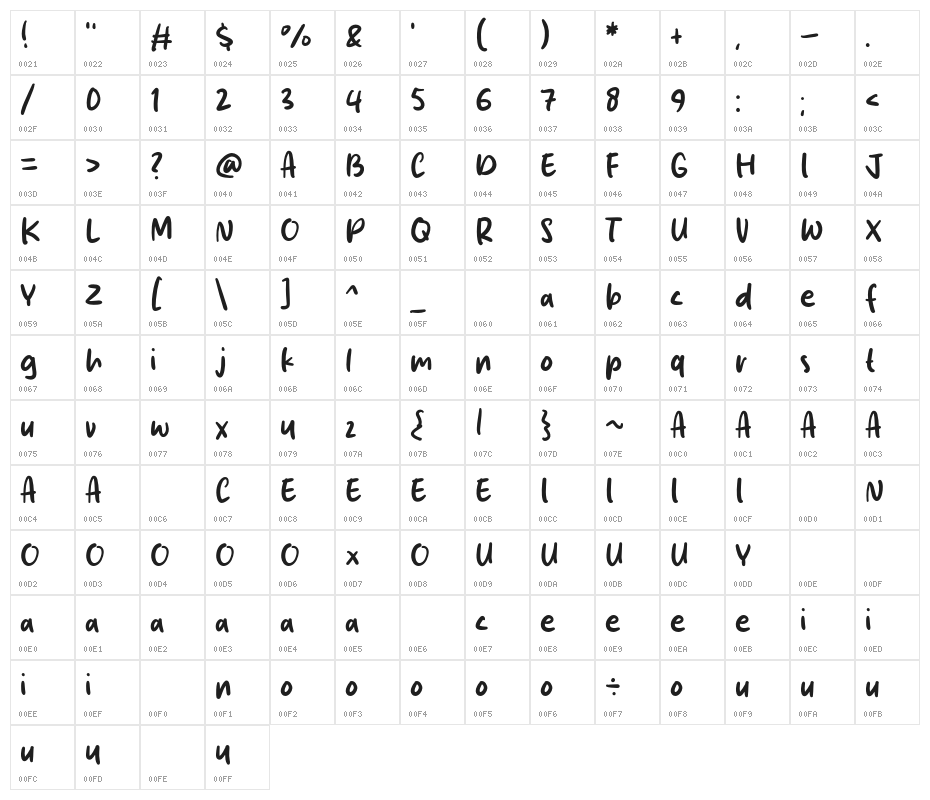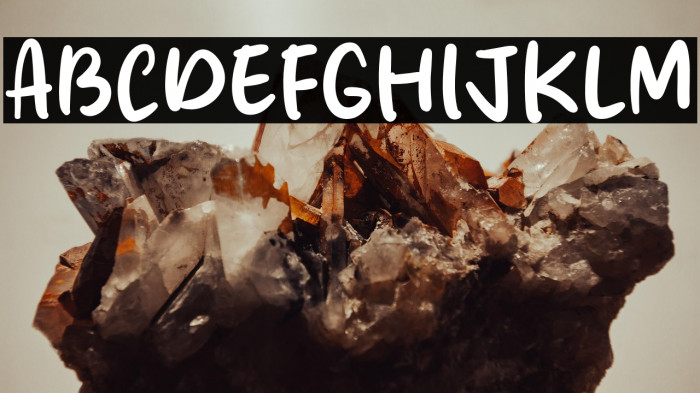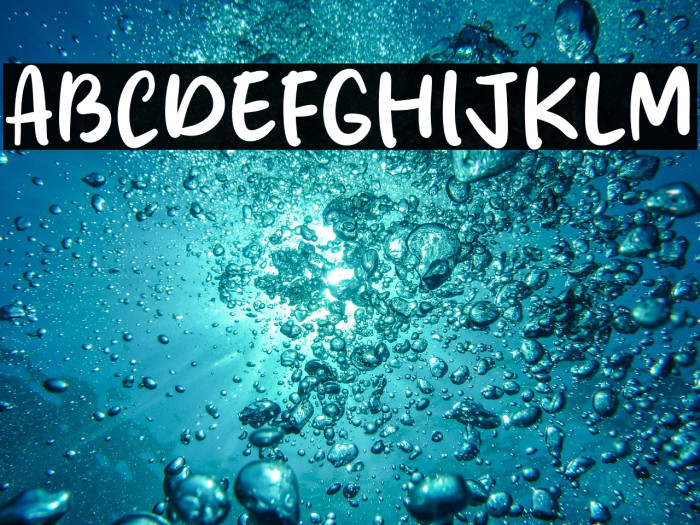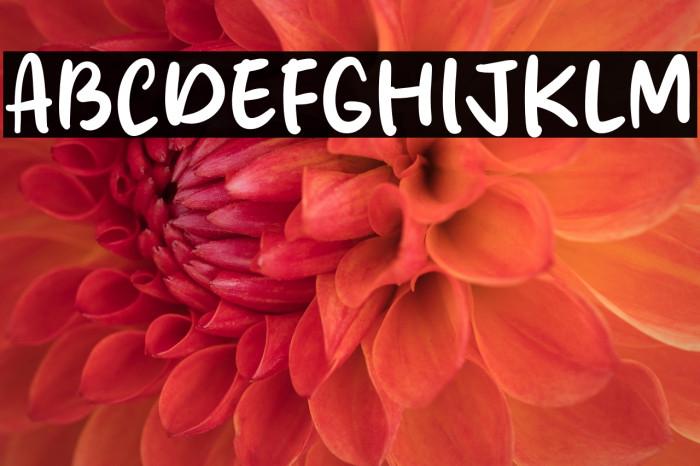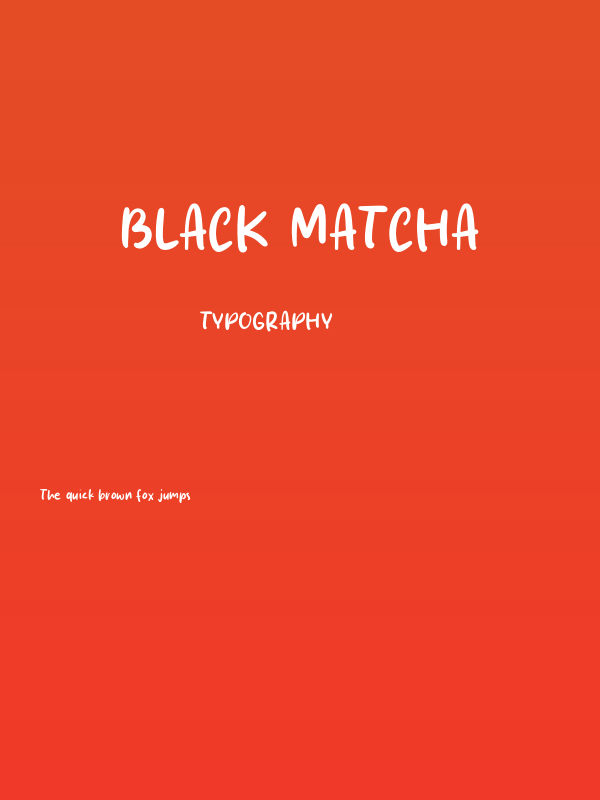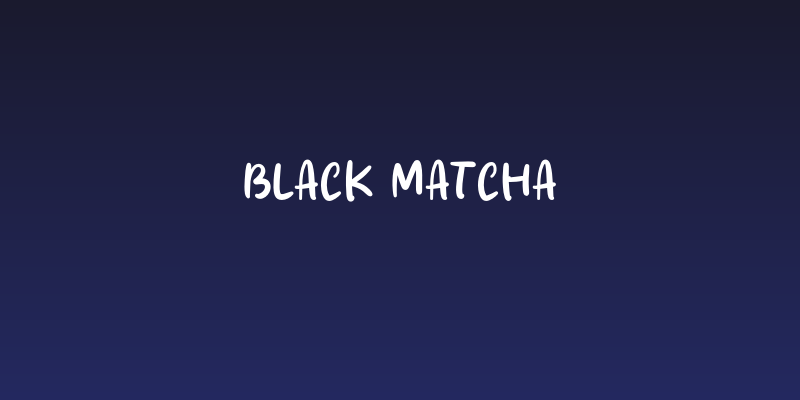
Black Matcha Font
Black Matcha Description
A bold, handwritten font with a casual and playful style, featuring rounded edges and consistent stroke width.
| Proposed Projects | Greeting cards, casual branding, social media graphics. |